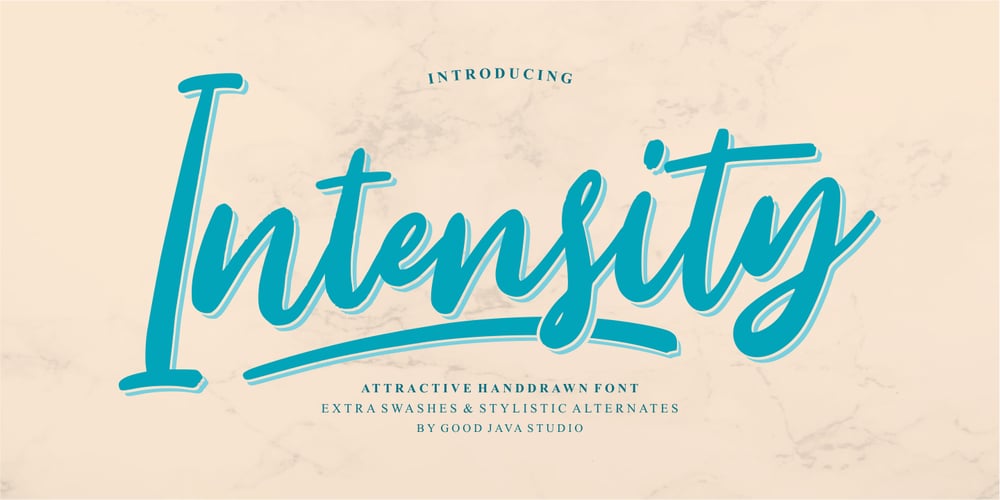
Intensity Font Family was designed by Good Java and published by Good Java Studio. Intensity contains 1 styles and family package options. Introducing to the new signature font: Intensity is a natural & modern handwritten font. It’s perfect for logo, invitation, stationery, wedding designs, social media posts, advertisements, product packaging, product designs, label, photography, watermark, special events or anything. This font include : Intensity OTF-TTF and also Multilingual support. – Very simple installation – PUA Encoded open – Very great for branding, logotype, handletteing, invitations, or fashion branding. – Multilingual Support – Support for Adobe Illustrator, Corel Draw, Indesign, Adobe Photoshop and Procreate 4.3 (NEW UPDATE) – Support for MAC or WINDOWS